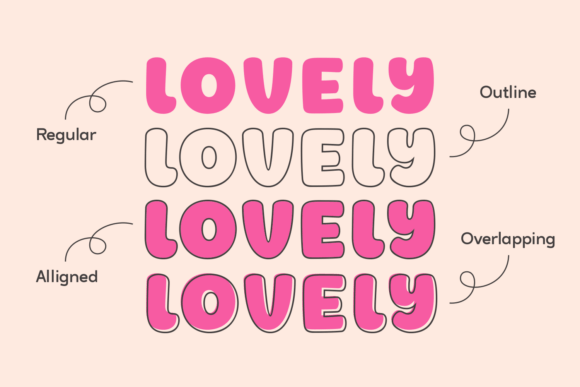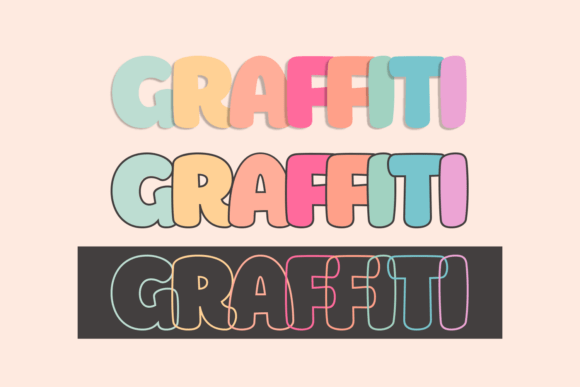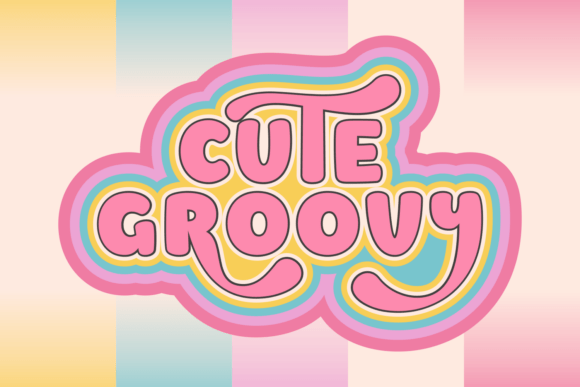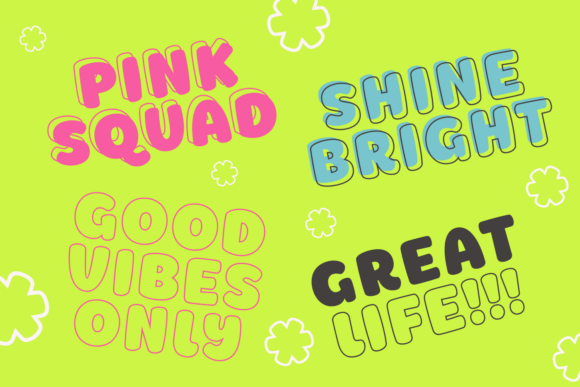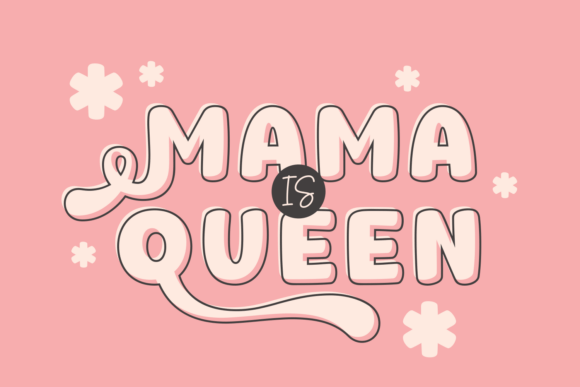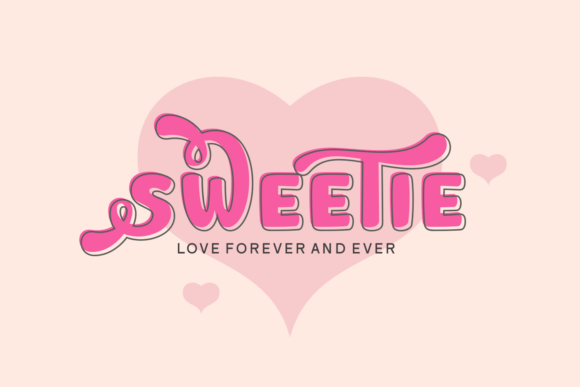
Step Back into the Groovy Era with Daily Chunky: A Retro-Font Dream
I still remember the design project that led me to discover Daily Chunky. I was working on a retro-themed t-shirt design for a client who wanted a font that would transport their customers back to the 1970s. I scoured the internet for the perfect font, but nothing seemed quite right – until I stumbled upon Daily Chunky. This vibrant font duo perfectly captures the spirit of retro-pop design, and I’ve been hooked ever since.
What Makes Daily Chunky Special?
Daily Chunky is more than just a font – it’s an experience. This set features a Regular and Outline style, characterized by massive, fluid swashes and a “chunky” weight that feels soft yet impactful. The interlocking characters and exaggerated loops bring an immediate sense of nostalgia and high-energy fun to any layout.
- ✨ Retro vibe: Daily Chunky perfectly captures the spirit of 70s design, making it perfect for retro-themed projects.
- ✅ Versatility: The font duo includes a Regular and Outline style, making it suitable for a wide range of applications.
- 💥 High-energy feel: The chunky weight and fluid swashes give the font a dynamic, playful feel.
- 🤔 Limited use cases for small text: Due to its chunky weight, Daily Chunky may not be the best choice for small text sizes or body copy.
- ⚠️ Requires careful kerning: The interlocking characters can sometimes get a bit messy, requiring manual kerning for optimal results.
The Story Behind Daily Chunky
Daily Chunky was designed with one goal in mind: to bring the fun and energy of 70s design to modern projects. The designer, inspired by the iconic typography of the era, set out to create a font that would evoke the spirit of retro-pop design. The result is a font duo that’s equal parts nostalgic and fresh.
Q: What makes Daily Chunky so special?
A: Daily Chunky is a unique font duo that perfectly captures the spirit of retro-pop design. Its chunky weight, fluid swashes, and interlocking characters make it perfect for bold, eye-catching designs.
Q: Is Daily Chunky suitable for small text sizes?
A: Due to its chunky weight, Daily Chunky may not be the best choice for small text sizes or body copy. It’s best used for headlines, titles, or other display text.
Q: Can I use Daily Chunky with other fonts?
A: Yes, Daily Chunky pairs well with a wide range of fonts. Experiment with different combinations to find the perfect match for your project.